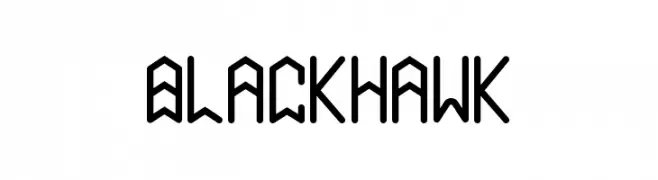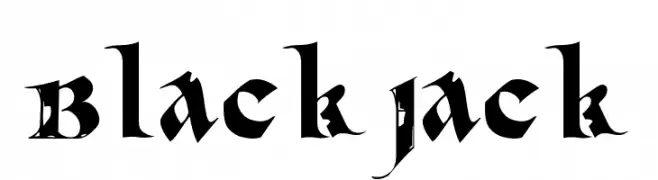
A bold, brush-style font with dynamic, hand-painted strokes.
A bold, gothic-style font with intricate detailing and sharp angles.
A bold, rounded font with a strong and friendly appearance.
A dynamic and expressive handwritten font with fluid strokes.
A bold, playful font with a hand-drawn, textured style.
A bold, geometric font with a futuristic and angular design.
A bold, flowing script font with elegant, cursive letterforms.
A bold, geometric font with sharp, angular design elements.
A playful, bold font with irregular, hand-drawn letterforms.
A bold, rounded sans-serif font with a modern and clean look.